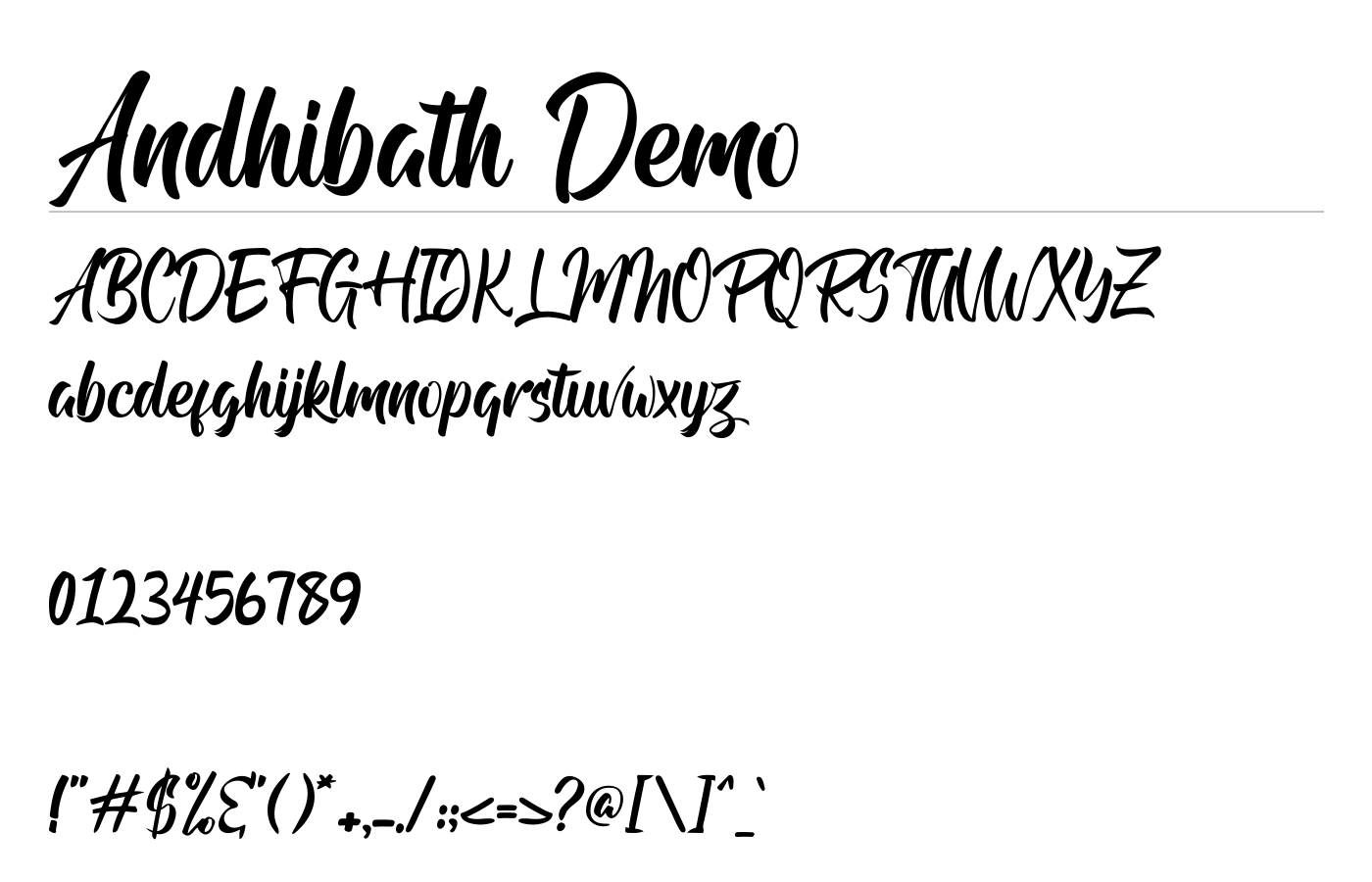
Andhibath Demo is a lively script font with a modern, handwritten feel characterized by smooth, flowing strokes and a slightly condensed width. Its bold weight and playful curves make it perfect for creative branding, invitations, and headlines that seek a personal and energetic touch. This font works well where a casual yet stylish impression is desired, adding warmth and personality to designs.
Andhibath Demo Font
About Andhibath Demo Font
| Font family | Andhibath Demo Font |
| Designer | Sabrcreative Studio |